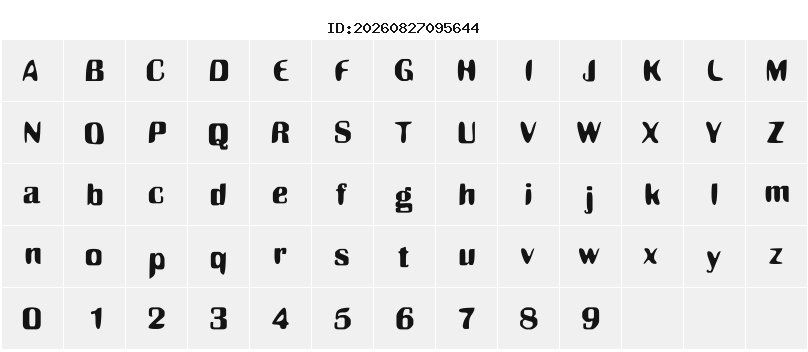
• Full Font Name: Britannic Bold Gras
About 330-CAI978.ttf
330-CAI978.ttf is a modern, elegant sans-serif font designed for ultimate readability and visual harmony. Perfect for branding, headlines, web design, and print materials.